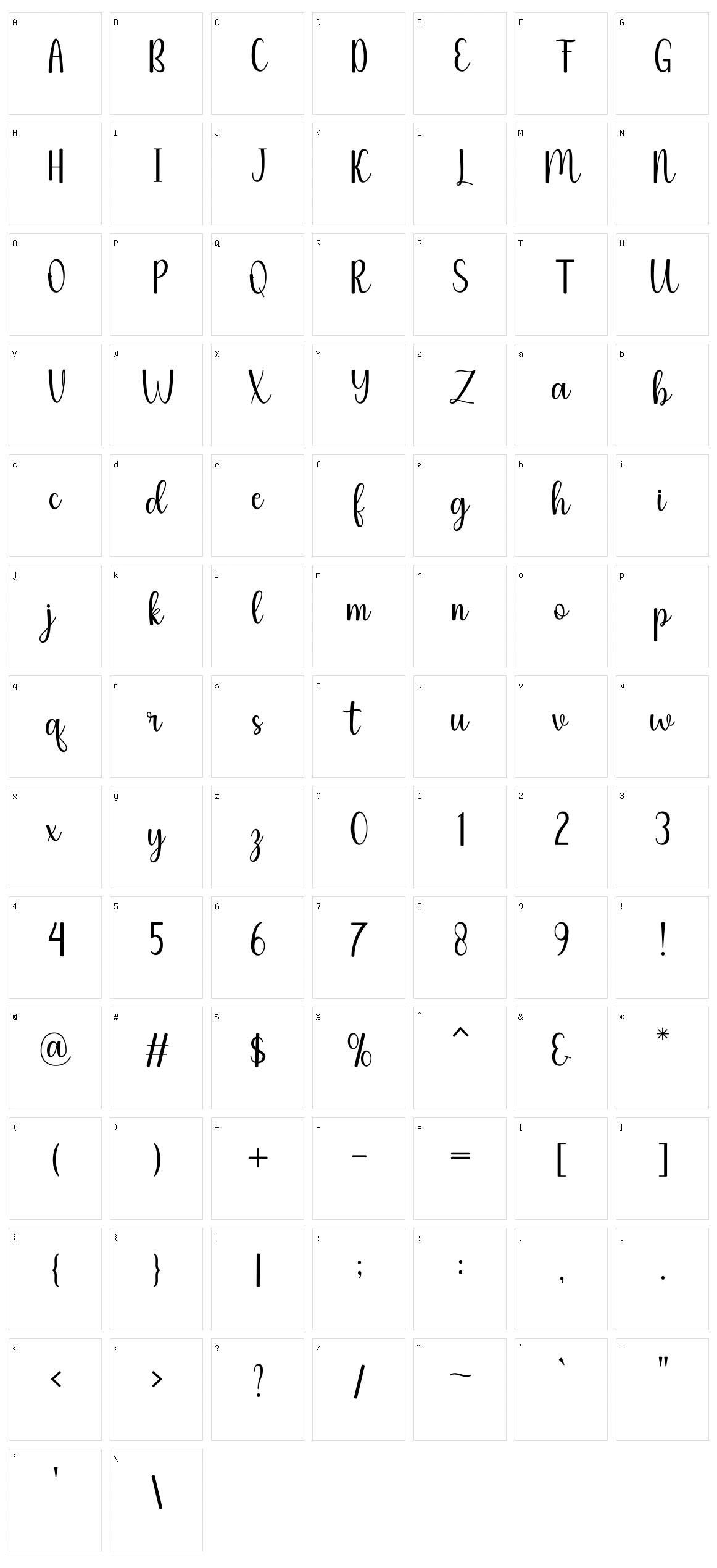
The free font Love Christabela is carefully designed by Wahyu Studio, showcasing a thoughtful balance of creativity and usability and falls under the Script font style. When you download the ZIP file, it contains only 256.89 KB of font files, making it lightweight and quick to download. Please review the license details below to understand permitted usage and distribution rights. If license information is not available, we recommend using this font for personal projects only or contacting the author directly for commercial usage permissions.